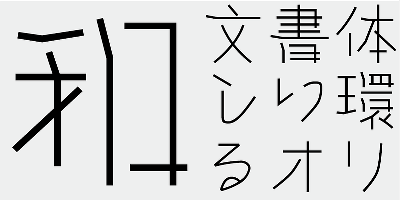
Adva Open MF Font is perfect for various design applications including modern website headers, corporate branding materials, professional business cards, sleek logo designs, contemporary poster layouts, magazine headlines, digital marketing campaigns, and sophisticated presentation slides. This versatile typeface adapts seamlessly to both print and digital media projects.
What makes Adva Open MF Font exciting is its unique blend of geometric precision and organic flow. The carefully crafted letterforms feature clean lines with subtle curves that create visual interest without sacrificing readability. Its balanced proportions and optimized spacing make it ideal for both display and text applications, while the distinctive character shapes ensure your designs stand out from the crowd.
The Adva Open MF Font family includes multiple weights and styles to meet diverse design needs. From light and regular weights for body text to bold and black variants for impactful headlines, this comprehensive font family provides designers with complete typographic flexibility. Each weight maintains the signature aesthetic while offering different levels of visual emphasis.
Professional designers and creative agencies choose Adva Open MF Font Free Download for projects requiring contemporary elegance and exceptional legibility. Whether you're developing brand identities, creating editorial layouts, or designing user interfaces, this font delivers consistent performance across all platforms. Its technical excellence and aesthetic appeal make it an essential addition to any designer's typography collection, ensuring your creative work achieves maximum visual impact.